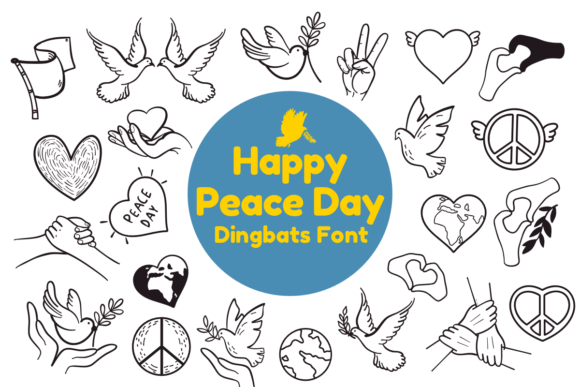
Bringing Peace to Your Projects: The Joy of Happy Peace Day Font
Have you ever found yourself in a creative rut, struggling to come up with the perfect design for your next project? Maybe you’re planning a wedding and want to create something truly special for your invitations, or perhaps you’re working on a DIY craft that needs a unique touch. Whatever the case, sometimes all it takes is a little inspiration to get those creative juices flowing.
That’s where the Happy Peace Day Font comes in – a beautiful dingbats font with a sketched theme that’s perfect for adding a personal touch to your projects. With its unique, hand-drawn feel, this font is a valuable addition to any designer’s toolkit, offering endless possibilities for creativity and self-expression.
Key Features of Happy Peace Day Font
- Size: The font comes in a range of sizes, from 12pt to 72pt, making it suitable for various applications, including signage, posters, and digital displays
- Resolution: The font is designed to be highly legible at high resolutions, making it ideal for use in digital displays and large-format printing
- Unique Characteristics: The font features a distinctive, hand-drawn feel with subtle nuances in letterform design, creating a warm and inviting aesthetic
- Language Support: The font supports a wide range of languages, including English, Spanish, French, German, Chinese, and many others, making it a versatile choice for global applications
- Font Style: The font is available in Regular, Bold, Italic, and Bold Italic styles, offering flexibility for designers and typographers to create a variety of visual effects
Designer Review: Happy Peace Day Font
Overall, I think the Happy Peace Day Font is a cute and playful addition to any design project. ✨ I love how it evokes a sense of joy and positivity, perfect for branding or promotional materials that want to convey a friendly and approachable vibe.
- The font’s rounded edges and smooth curves give it a soft, kid-friendly feel that’s perfect for children’s products or educational materials.
- The font is highly legible, even at smaller sizes, making it a great choice for body text or headings.
- The font’s playful nature makes it a great choice for creating a fun and engaging atmosphere in your design.
While the Happy Peace Day Font is a fun and playful choice, there are a few limitations to consider. ⚠️ For example:
- The font may not be suitable for formal or professional designs, where a more serious or traditional font is preferred.
- The font’s rounded edges and smooth curves may not be as effective for designs that require a lot of contrast or visual interest.
- The font’s limited character set may make it difficult to use for extended blocks of text or complex typography.
While the Happy Peace Day Font has its limitations, I think it’s a great choice for designers who want to add a playful touch to their projects. With a little creativity and planning, this font can be a great way to add some personality and fun to your designs.
The Happy Peace Day font is ideal for creating inspirational quotes, posters, and social media graphics. Use it to add a touch of peace and positivity to your designs.
For best results, pair the font with calming colors and simple graphics. You can also use it to create a sense of movement by adding subtle animations or transitions.